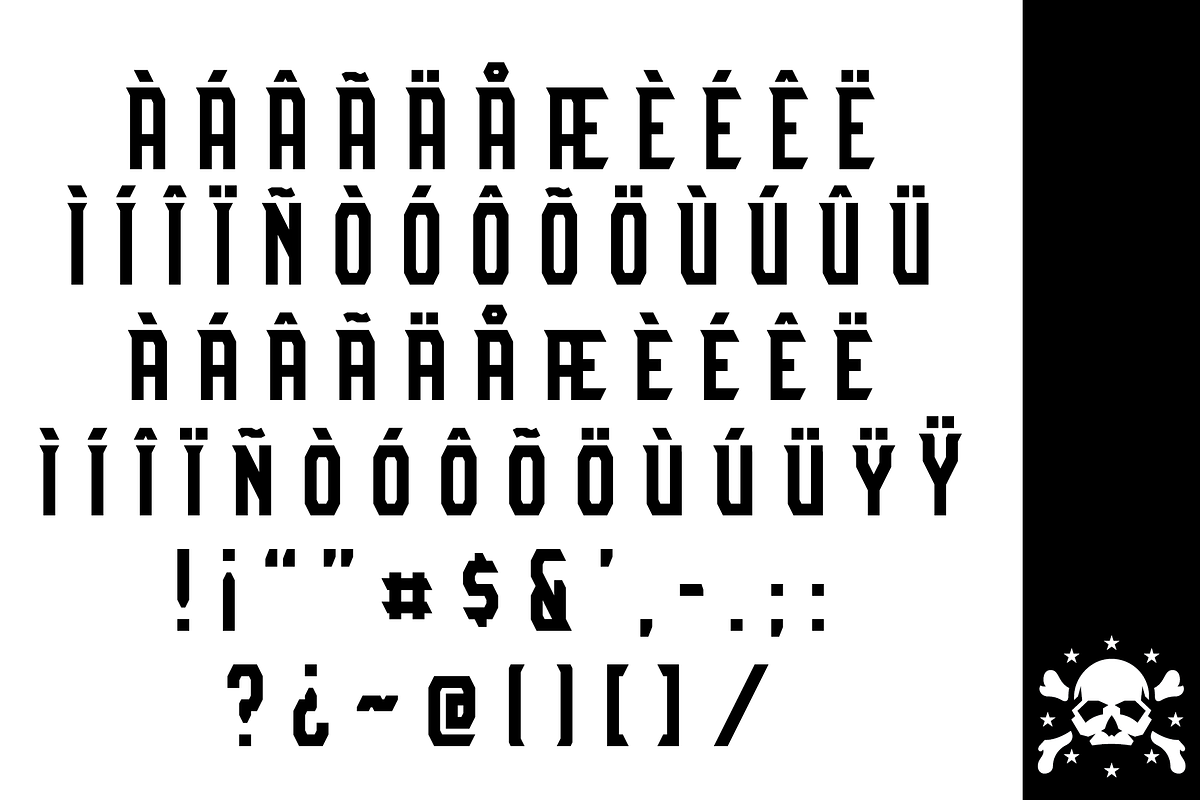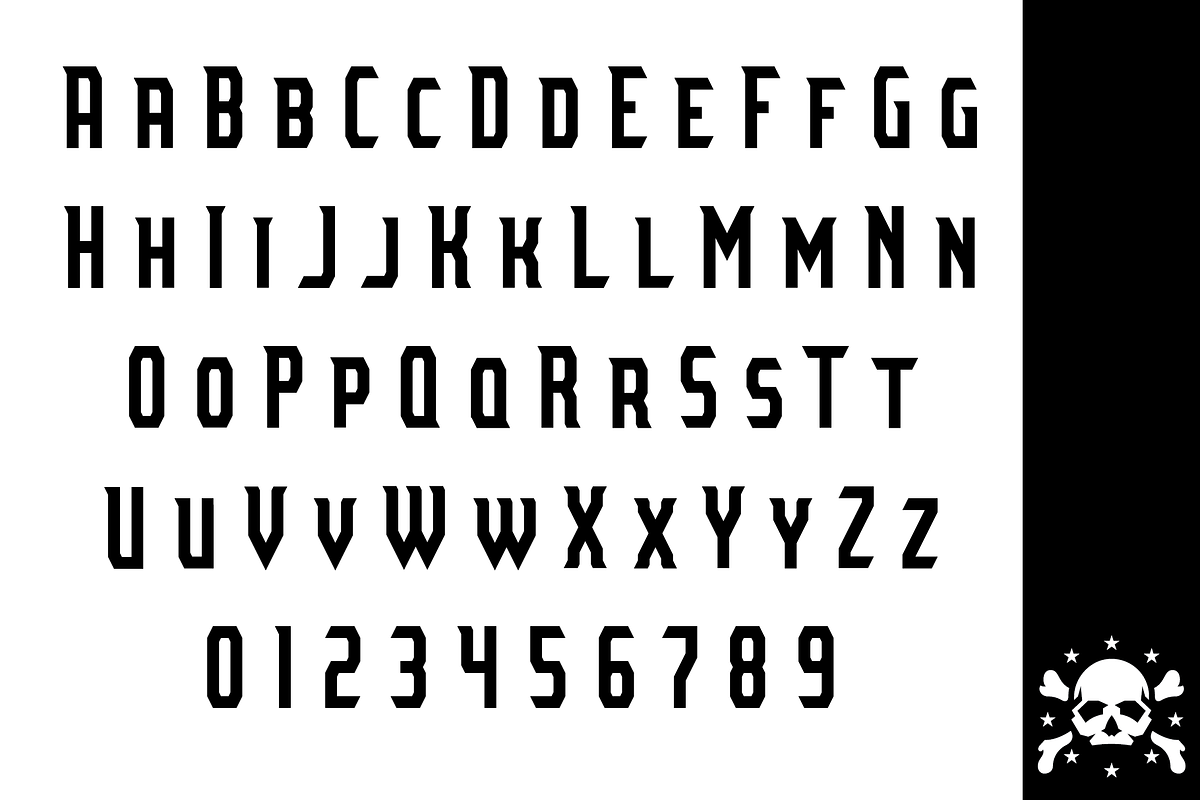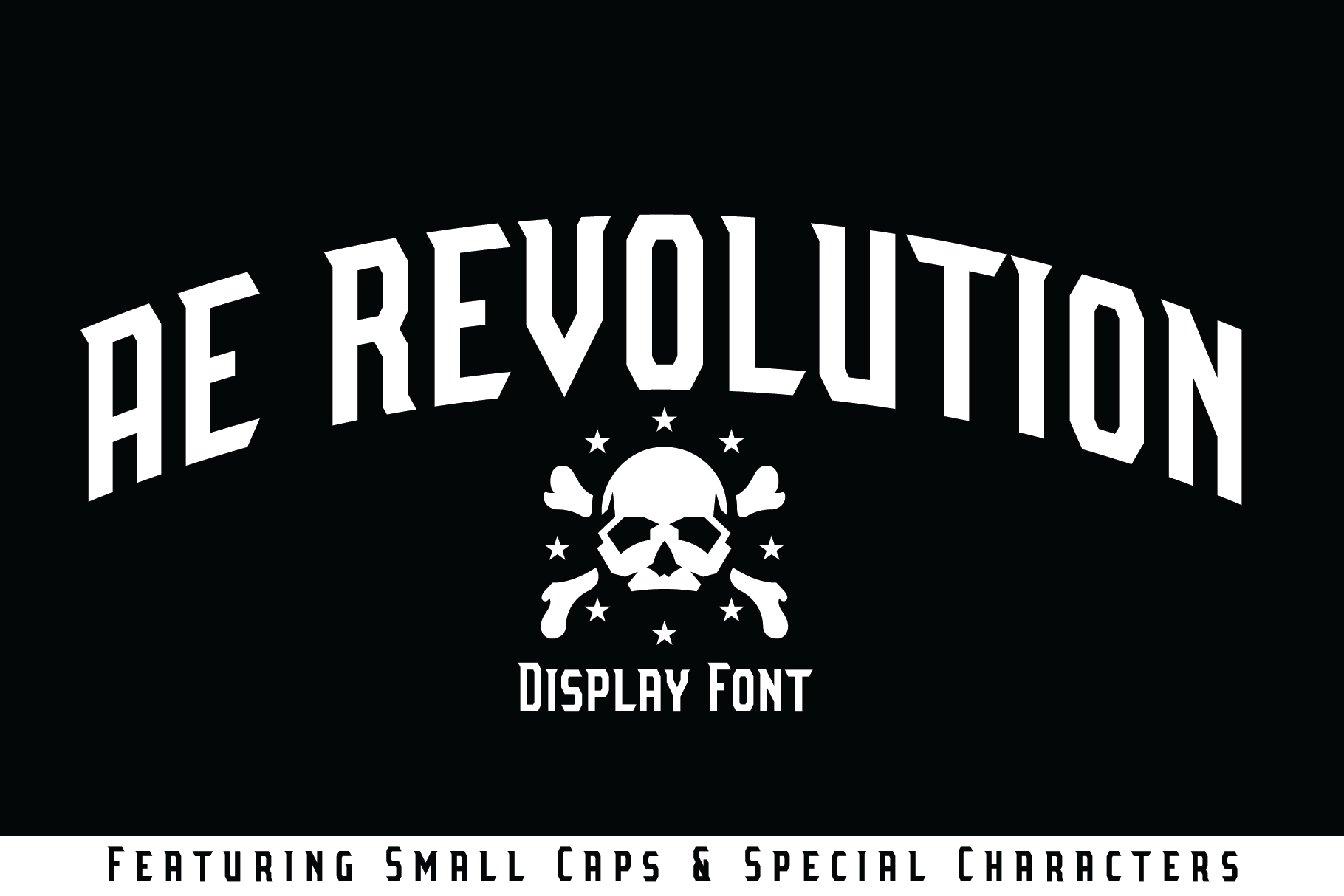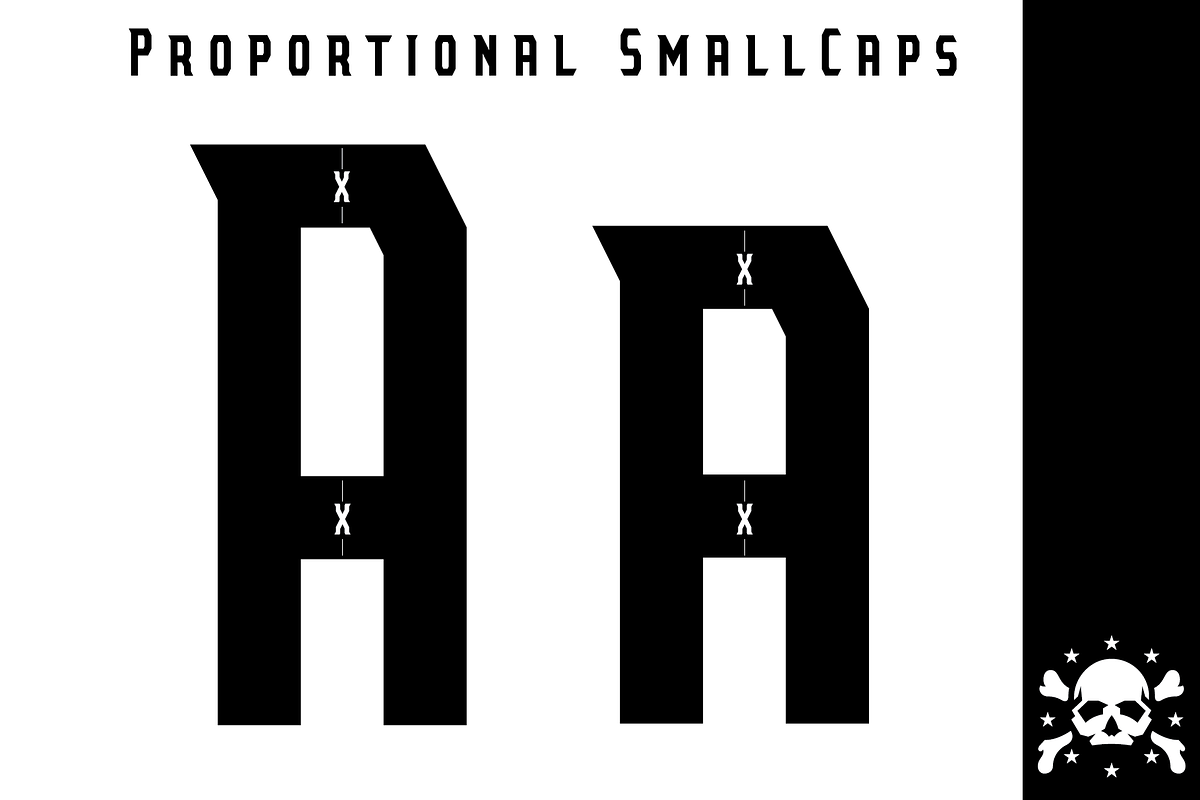
AE Revolution Display Font
AE Revolution is a brand new stylized block typeface that features slanted serifs at a consistent angle.
- Proportional Small Caps that keep a consistent weight as the Uppercase letters, not simply scaled down.
- Multilingual glyphs in both Uppercase & Small Caps
- Punctuation, including both # & @ for use with social media